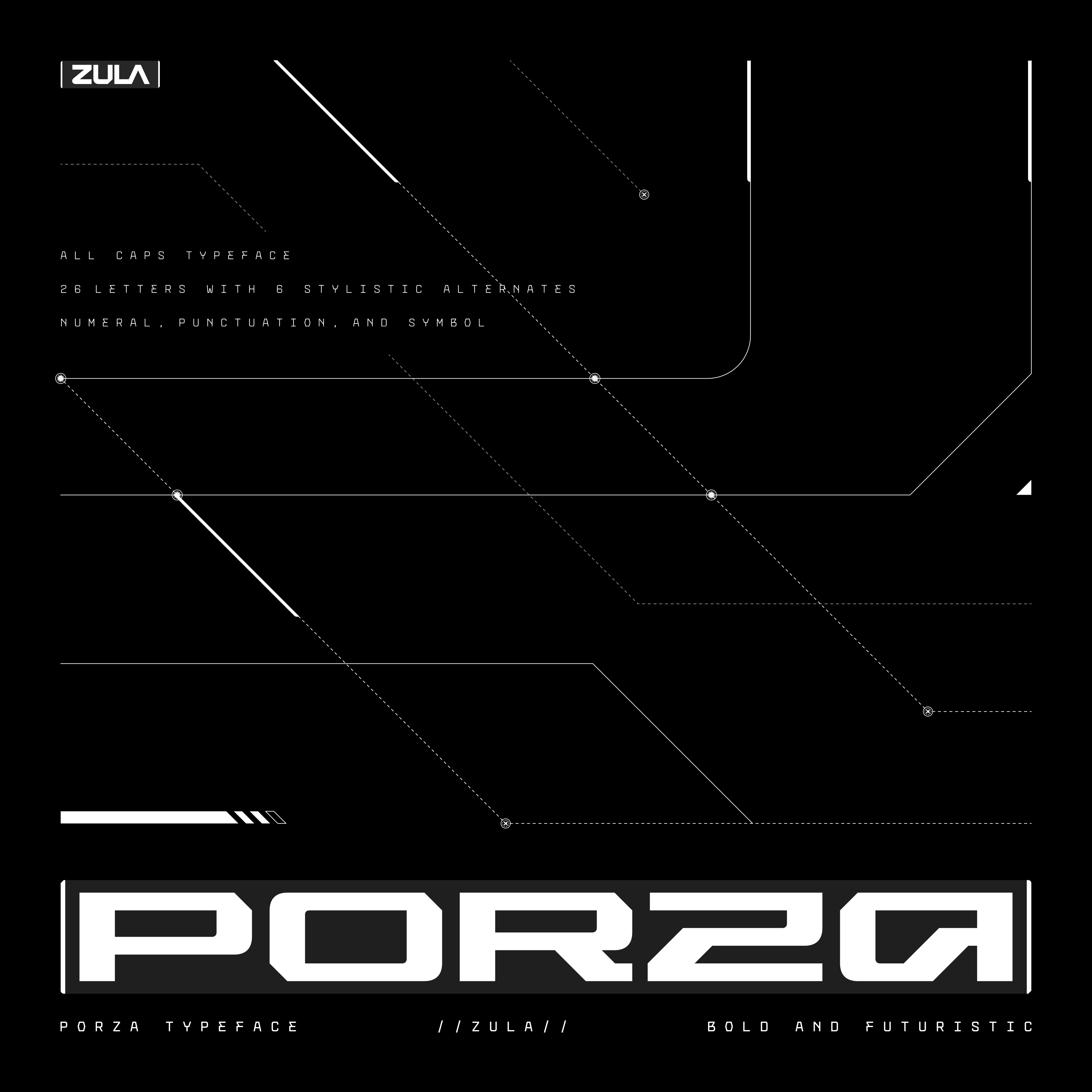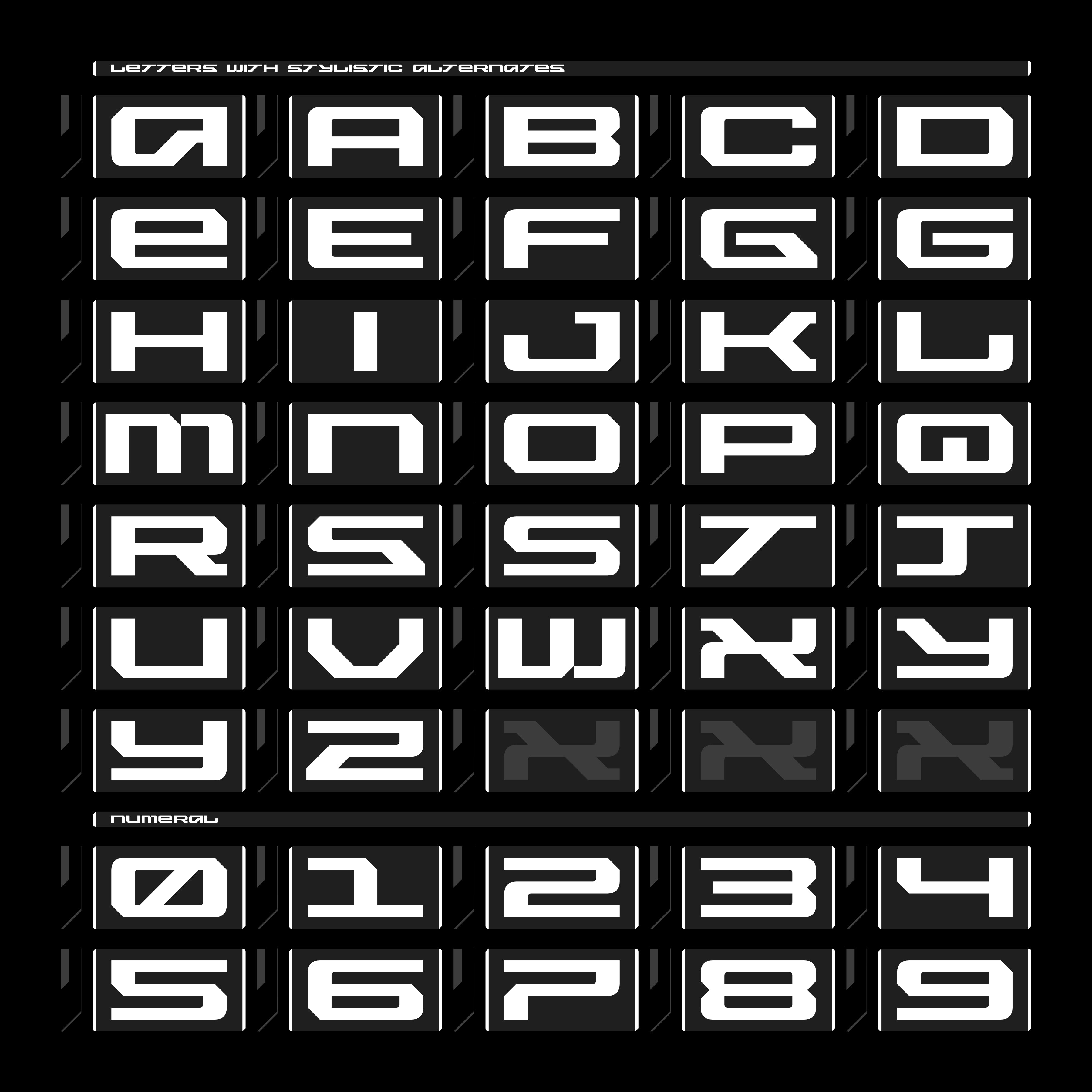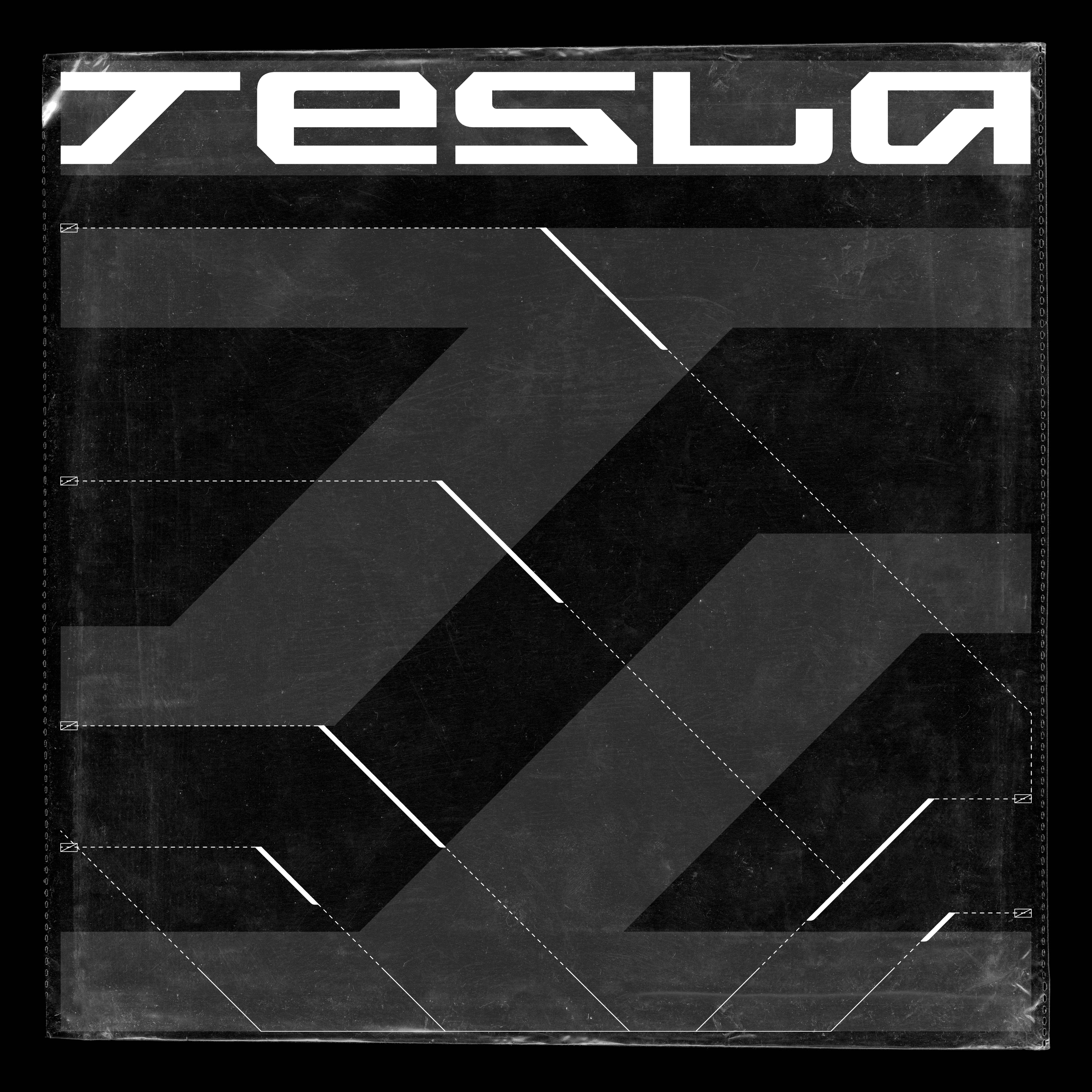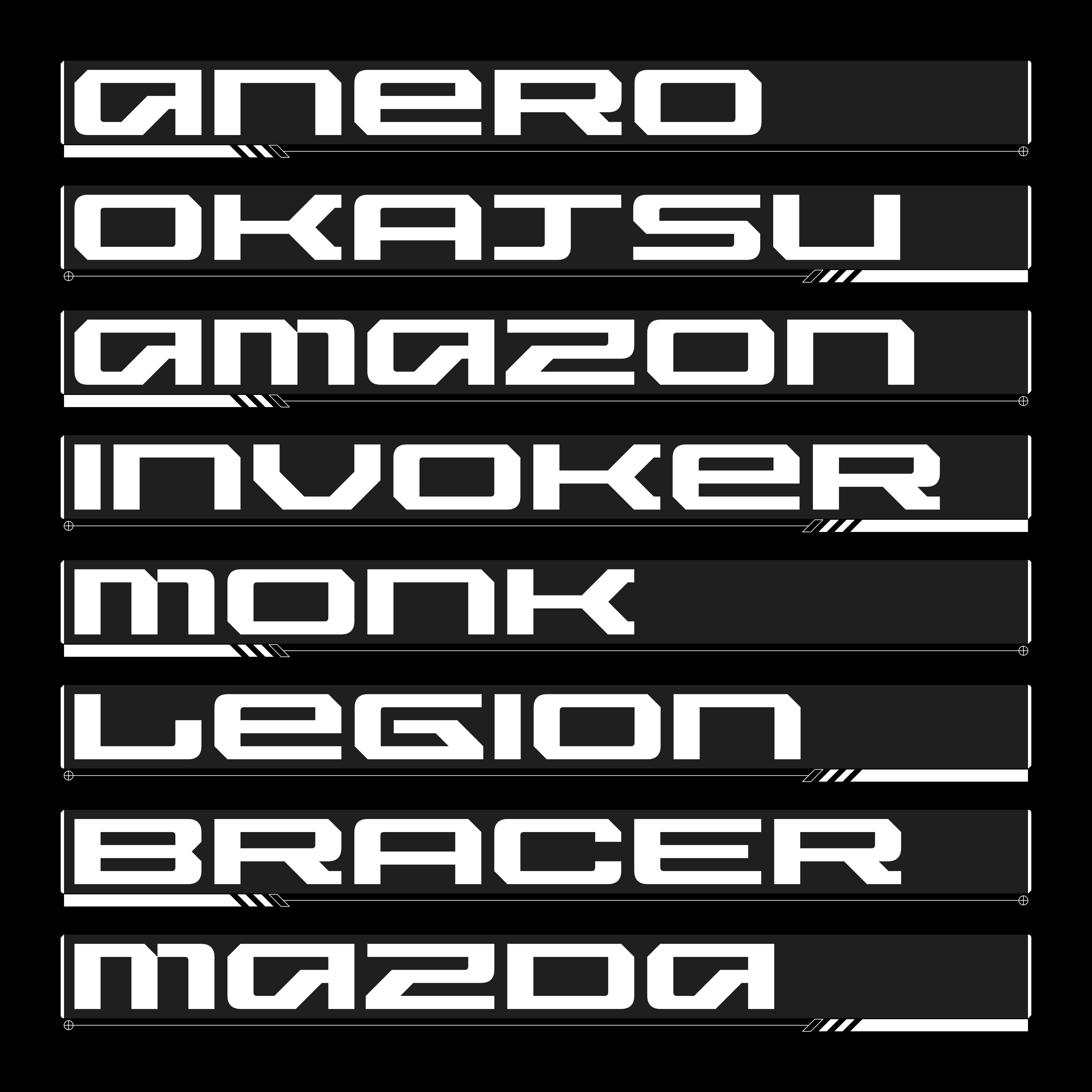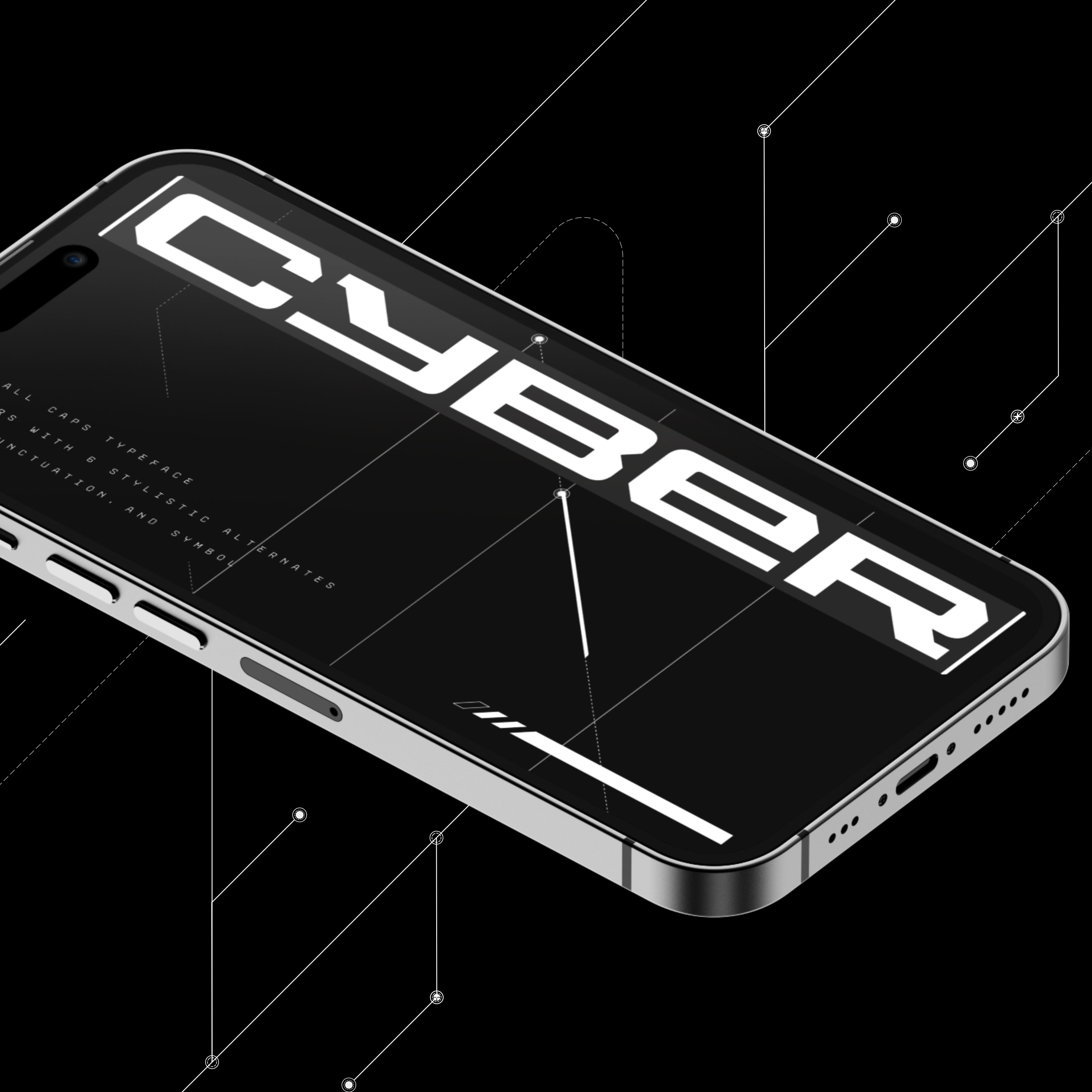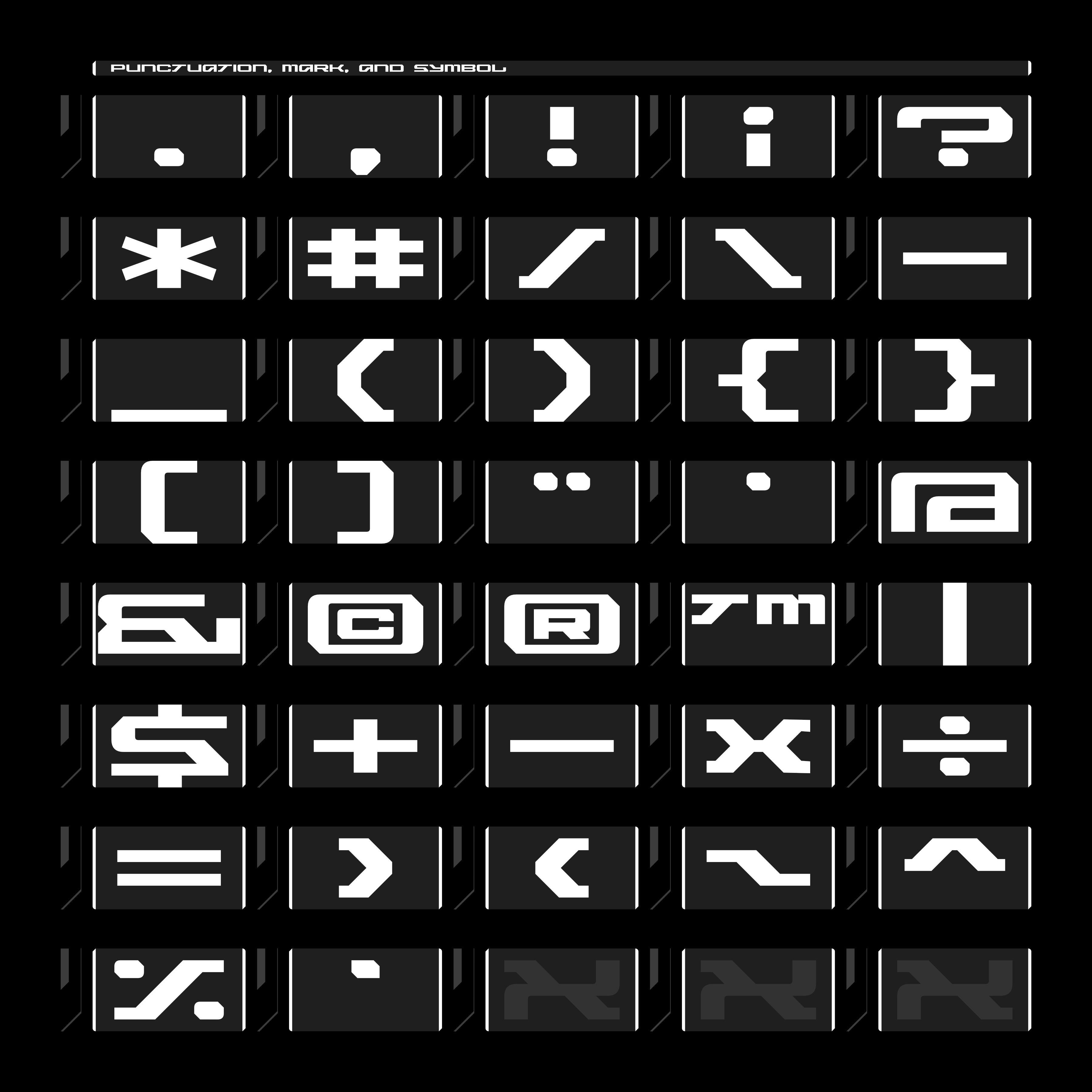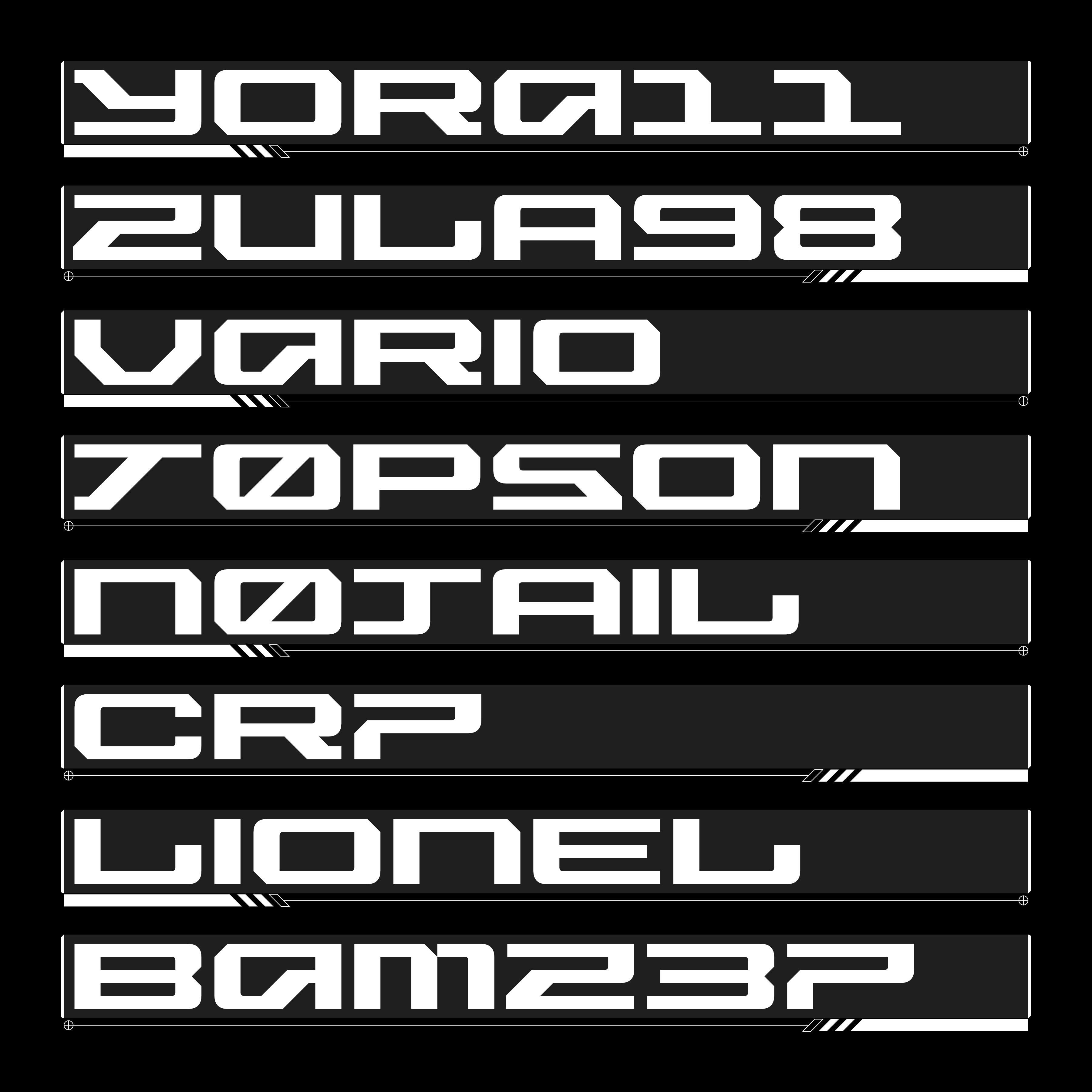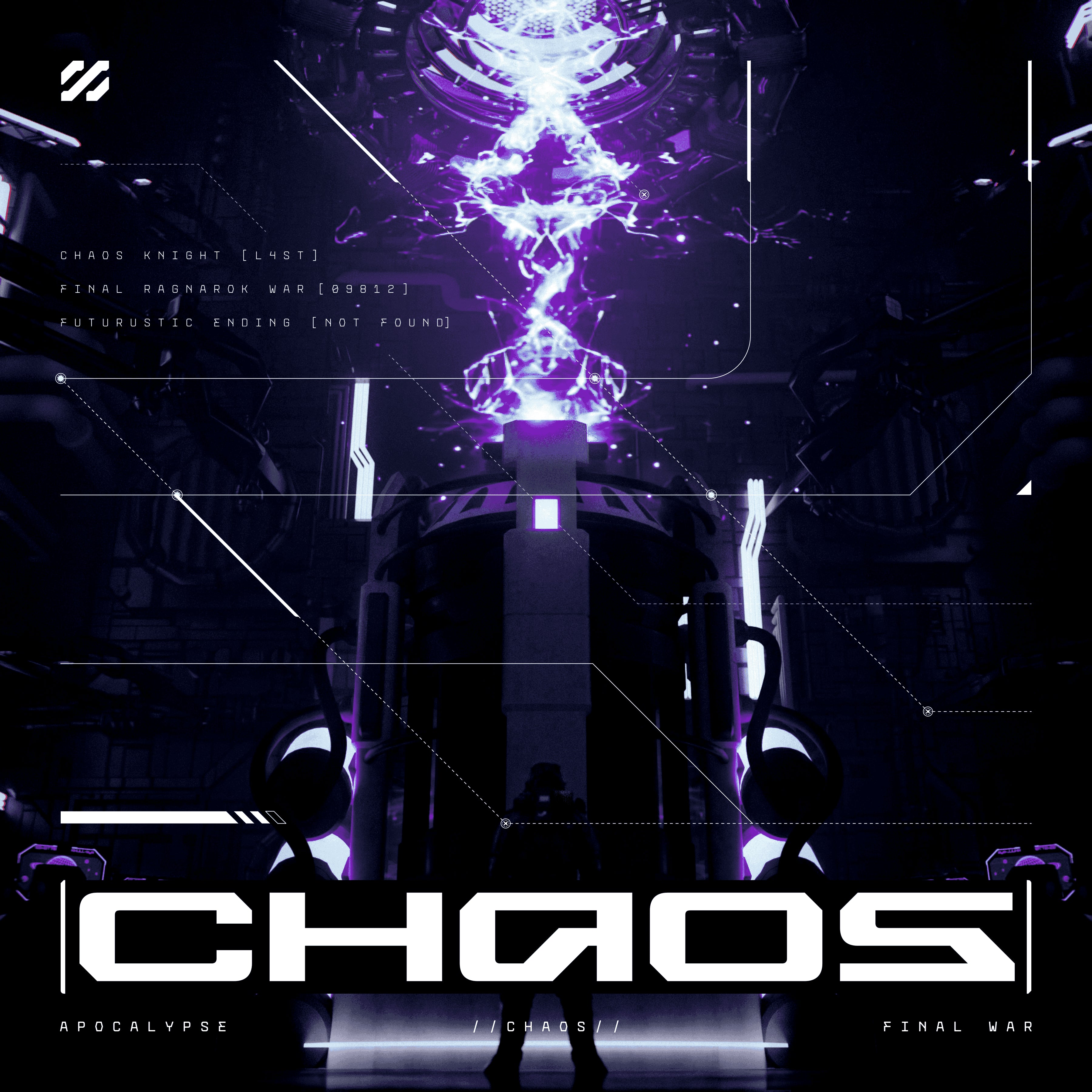
PORZA TYPEFACE
PORZA IS A ALL CAPS FONT THAT COMBINES FUTURISTIC, RETRO, CYBERPUNK, AND Y2K ELEMENTS WITH A BOLD LOOK. IT'S PERFECT FOR POSTERS, DISPLAYS, AND PROJECTS THAT REQUIRE A BOLD AND EYE-CATCHING LOOK.
26 LETTERS AND 6 ALTERNATE
10 NUMERALS
BASIC PUNCTUATION, SYMBOLS, AND MARKS
The PORZA Typeface is an all-caps font that features a bold design, incorporating futuristic, retro, cyberpunk, and Y2K elements. It includes OTF/TTF and WOFF formats, 26 letters with 6 alternate options, 10 numerals, and basic punctuation, symbols, and marks.